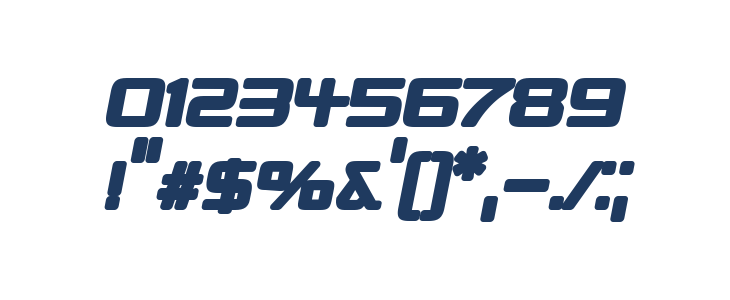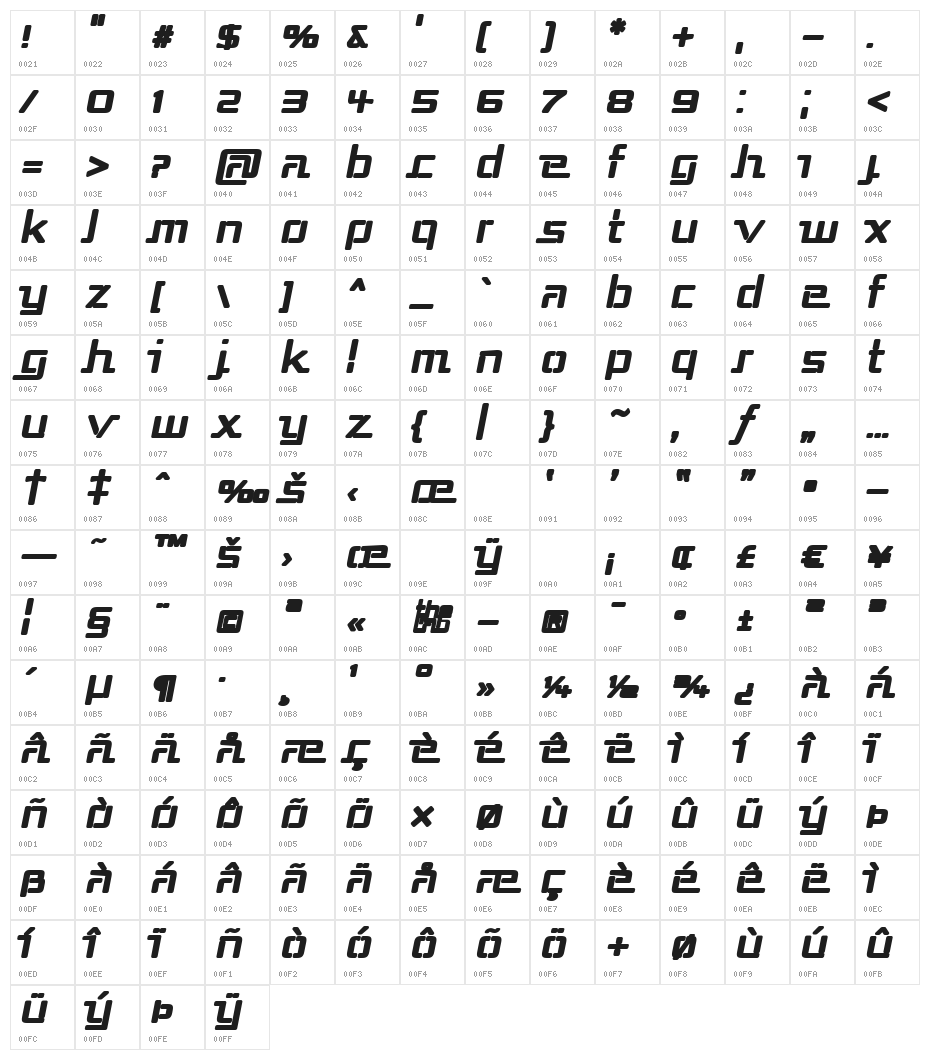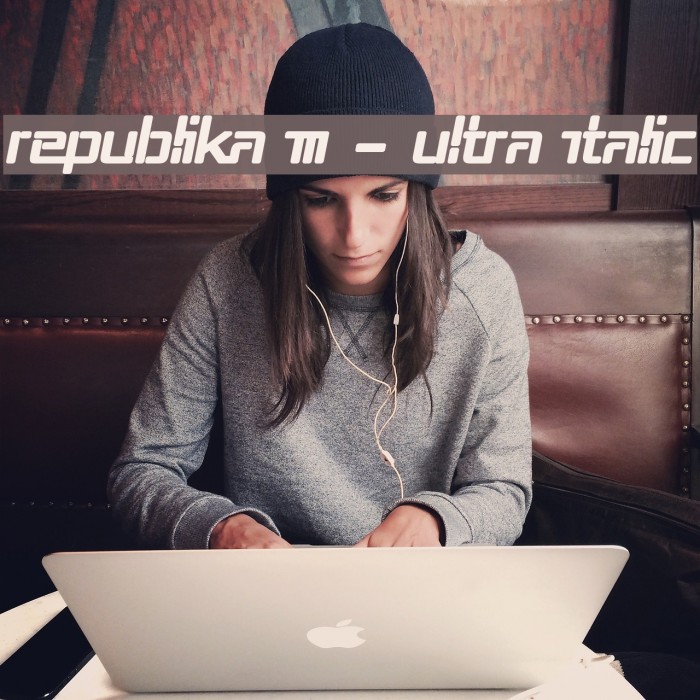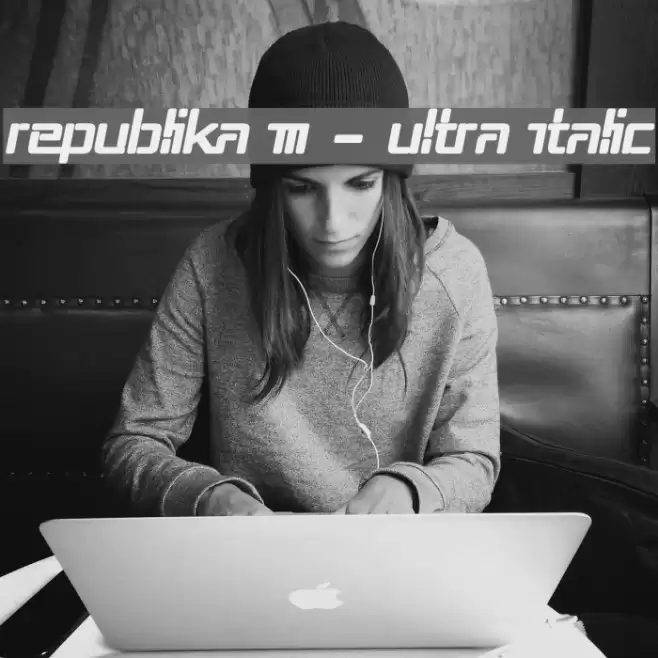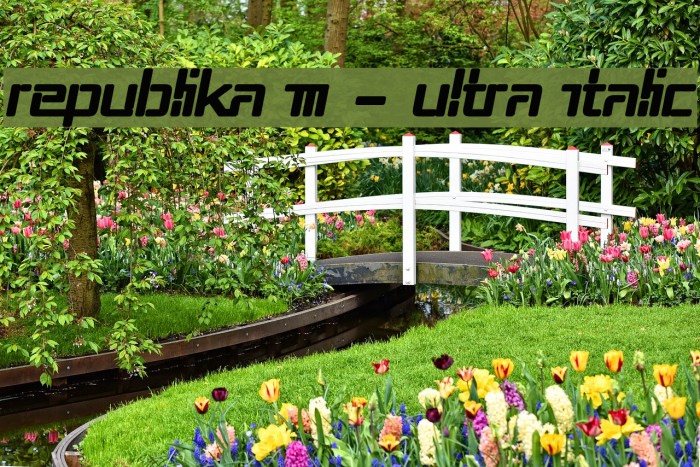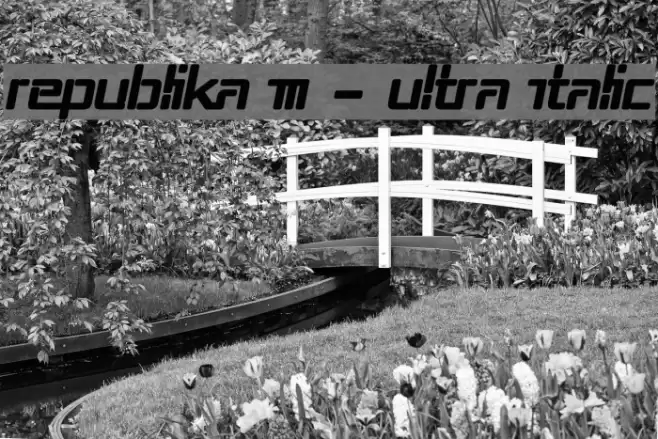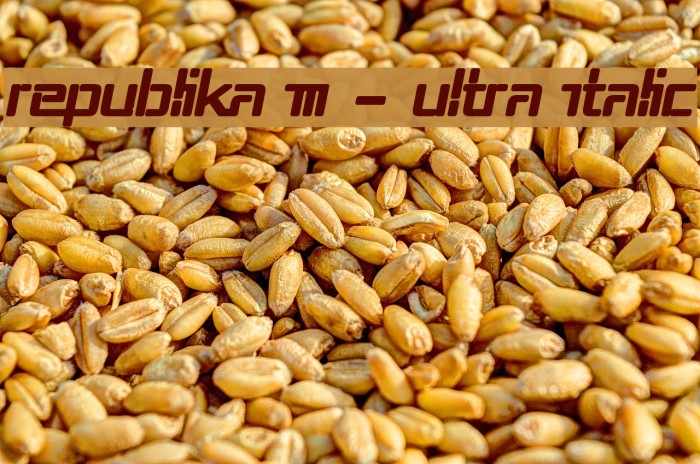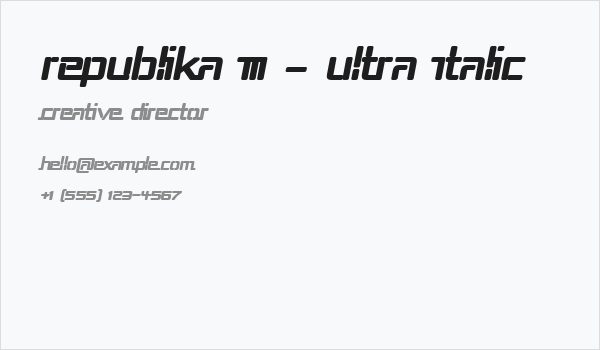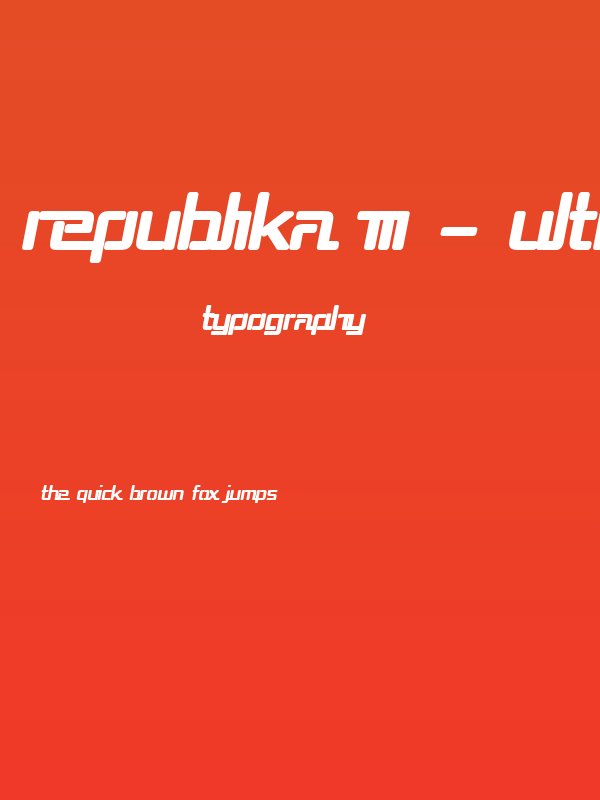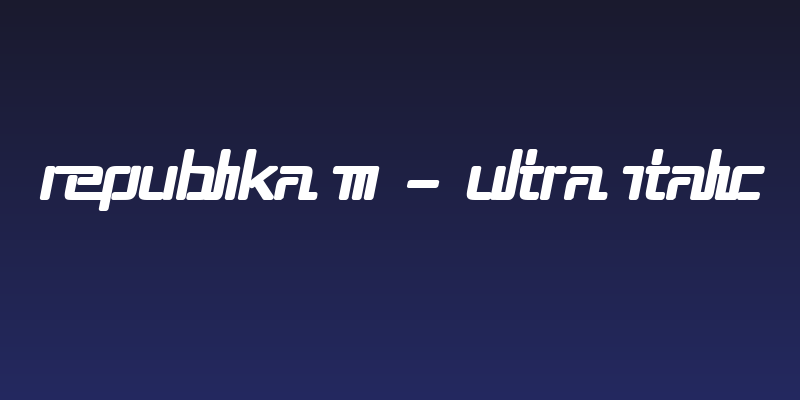
Republika III - Ultra Italic Font
Republika III - Ultra Italic Description
This font features a bold and dynamic design with a futuristic flair. The characters are italicized, giving a sense of motion and speed. The strokes are thick and consistent, providing a strong visual impact. The geometric shapes and sharp angles contribute to its modern and edgy appearance. The font maintains a uniform width across all characters, ensuring readability while adding a unique style. It is well-suited for projects that require a bold statement, such as technology branding, sports team logos, or dynamic advertising campaigns.
| Use Case | Logos, Headlines, Advertising |
| Proposed Projects | Ideal for technology branding, sports logos, dynamic advertising, and modern design projects. |